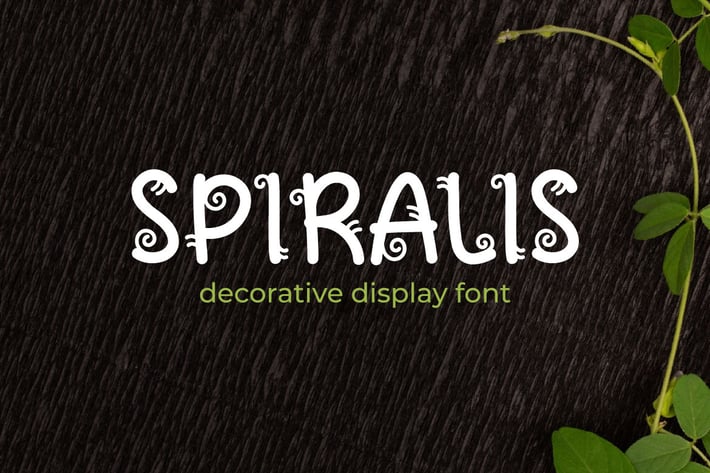
Spiralis - Decorative Display Font
Spiralis is a stunning and stylish decorative font, designed to make every design project look more elegant and classy. With beautiful ornamental details and a captivating aesthetic, Spiralis is perfect for various creative needs such as posters, book covers, branding, wedding invitations, and much more.
Spiralis combines elegance and creativity in every character, making it the ideal font for projects that need a decorative and eye-catching touch. Make your designs more classy and captivating with Spiralis!